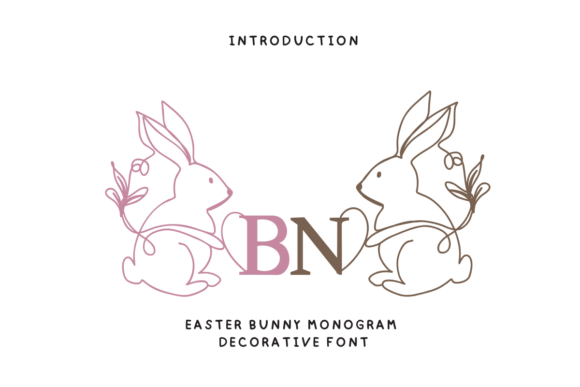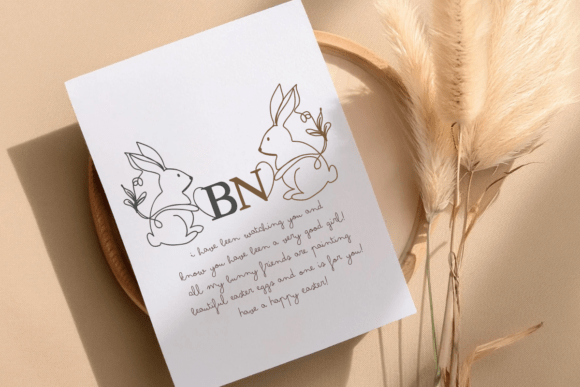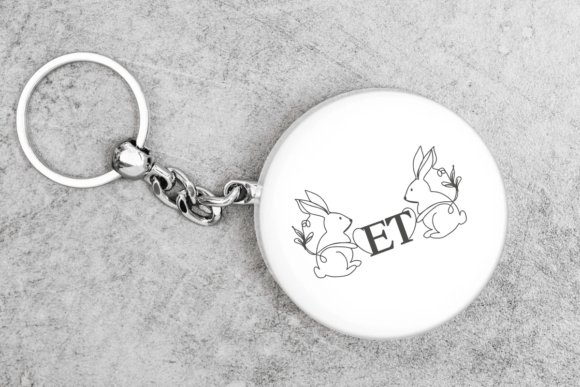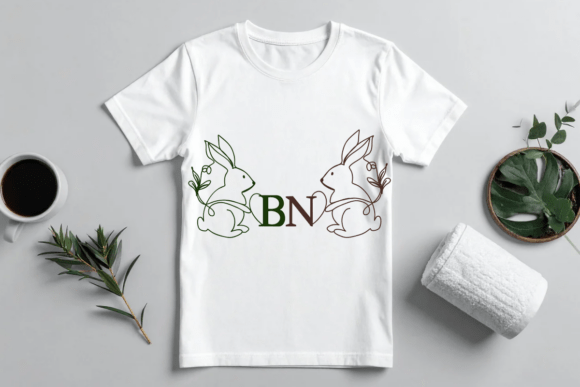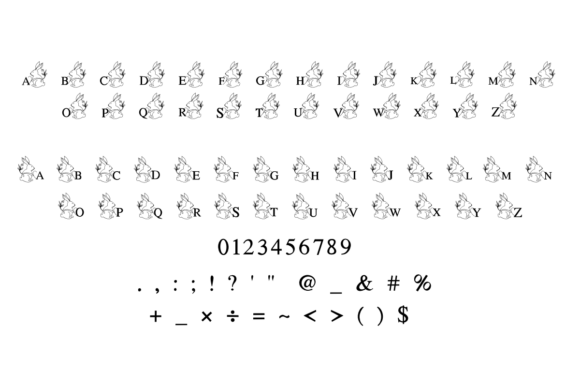
Unleash Your Creativity with Easter Bunny Monogram Font
Have you ever been stuck trying to come up with the perfect phrase for a greeting card, only to find yourself doodling and scribbling until the words just flow? It’s those moments of pure creative freedom that make us love making things. But sometimes, all it takes is the right font to bring our ideas to life. That’s where the enchanting Easter Bunny Monogram font comes in – a decorative font designed to add an artistic touch to your everyday creations.
Perfect for journaling, card-making, or even crafting designs for mugs and t-shirts, the Easter Bunny Monogram font is a versatile companion for any creative project. Its captivating aesthetics make it a valuable asset for designers looking to add a unique flair to their content. Whether you’re a seasoned pro or just starting out, this font is sure to inspire your next masterpiece.
- Unique Characteristics: Features a playful and whimsical design, with intricate details and patterns reminiscent of Easter bunnies
- Monogram Style: Includes a range of monogram options, from simple to elaborate, allowing users to create personalized designs
- Font Style: Offers various font styles, including bold, italic, and script, to add depth and visual interest to designs
Easter Bunny Monogram Font Review
Overall, I think the Easter Bunny Monogram Font is a fun and playful choice for spring and Easter-themed projects. It has a cute, hand-drawn feel that’s perfect for adding a personal touch to invitations, party decorations, and more.
- ✨ The font’s whimsical design makes it stand out from more traditional fonts.
- ✨ It’s perfect for projects that need a touch of Easter magic, like Easter egg decorating or spring-themed greeting cards.
- ✨ The font is highly customizable, allowing you to adjust the size, color, and spacing to fit your design needs.
- ⚠️ The font may be too playful for more formal projects, like wedding invitations or business communications.
- ⚠️ The font’s hand-drawn design can make it difficult to read at smaller sizes or in complex layouts.
Overall, I think the Easter Bunny Monogram Font is a great choice for designers looking to add a touch of whimsy to their spring and Easter-themed projects. While it may not be suitable for all projects, it’s a fun and versatile font that’s sure to delight.
The Easter Bunny Monogram Font is perfect for creating Easter-themed designs, such as invitations, cards, and banners. It can also be used for other spring-themed designs, like floral arrangements and garden party invitations.